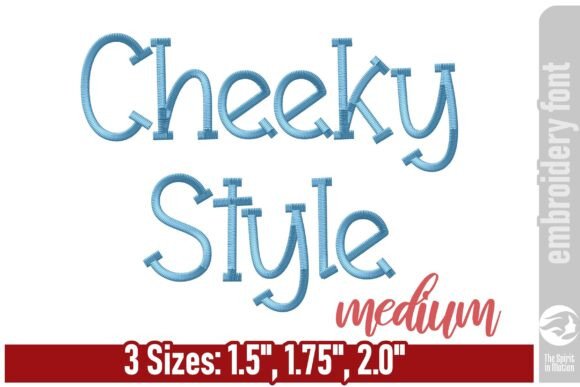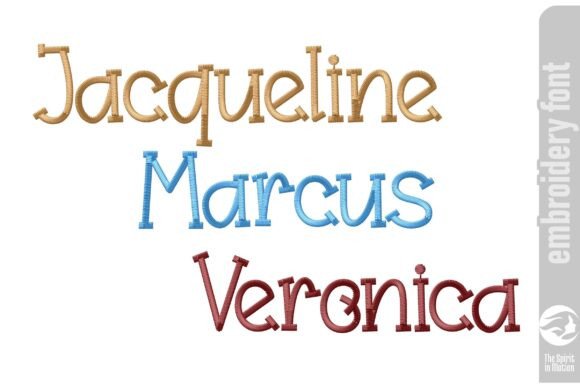
Cheeky Style Embroidery Font - Medium
Cheeky Style Embroidery Font – Medium
Add a touch of playful charm to your projects with this whimsical embroidery font! Designed with soft curves and a lighthearted feel, it’s perfect for personalizing baby bibs, blankets, and other sweet creations. Whether you’re stitching a name, a fun phrase, or a heartfelt message, this font brings joy and personality to every letter. Ideal for children’s gifts and nursery décor, it’s as delightful as the little ones it’s made for.